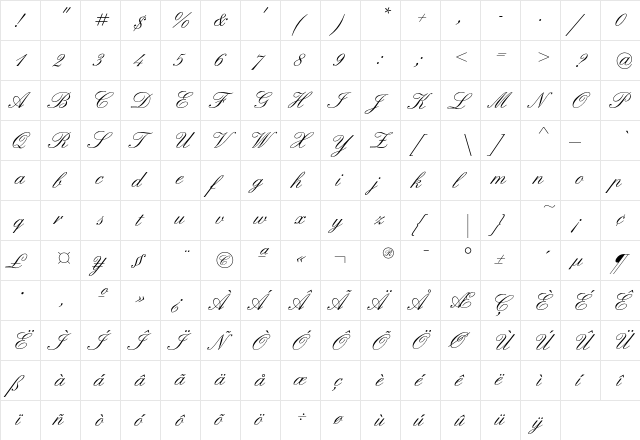
EnglishScriptEF Regular
Design Context for EnglishScriptEF Typeface
EnglishScriptEF brings a calligraphic fluidity to the page — its connecting strokes and expressive curves give it an unmistakably human quality.
Font Pairing: Combine EnglishScriptEF with a simple geometric sans for maximum contrast — the tension between flowing curves and clean structure is a classic typographic pairing.
Pro Tip: Pair EnglishScriptEF with a clean sans-serif for supporting text. The contrast between fluid script and geometric structure creates an elegant typographic hierarchy.